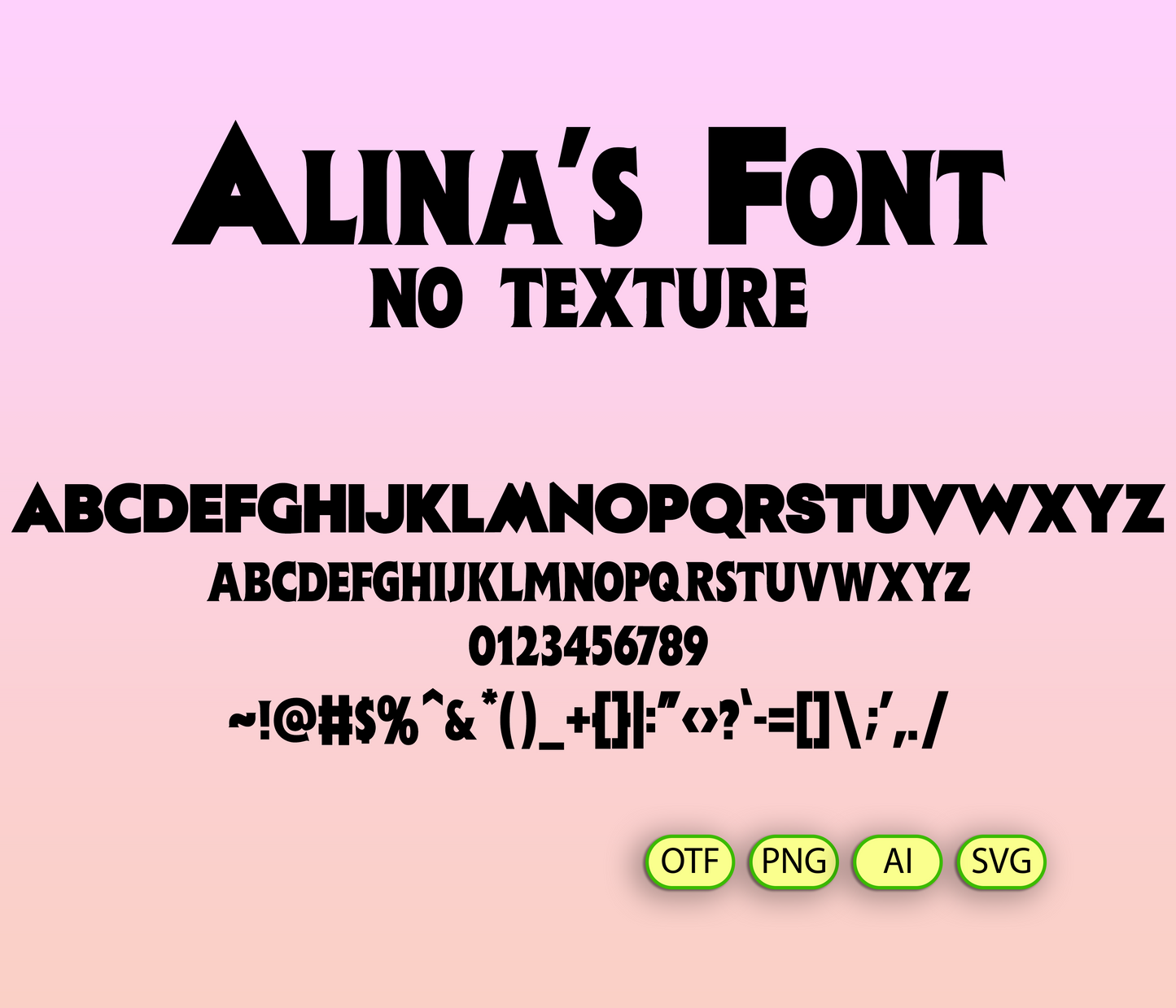
Mountain Tale Font
Embark on a snowy journey with our clean-lined, adventure-ready font! This meticulously crafted typeface captures the spirit of friendship found in snow-covered peaks and mystical mountain quests. Perfect for makers, designers, and everyone who wants to bring alpine wonder to their creations.
Our Mountain Tale font showcases pristine, crisp characters that embody high-altitude discoveries. Ideal for:
Our font honors the magic of unexpected bonds and mountaintop discoveries. Whether you're designing winter celebration materials, creating products, or adding enchanting touches to personal projects, this font transforms each creation into a tale of friendship and wonder.
Abominable And The Invisible City Font